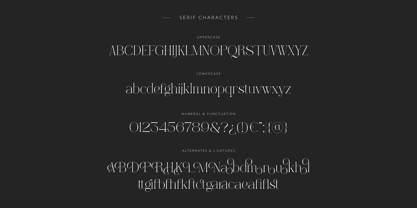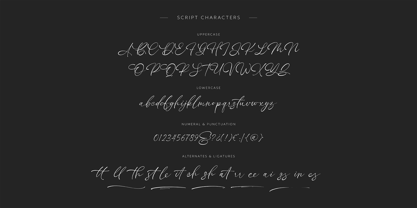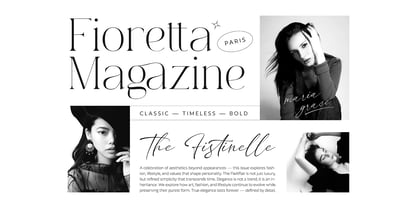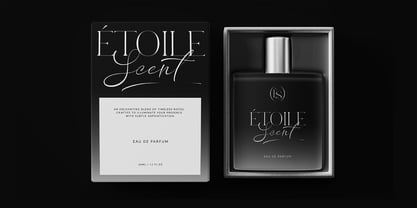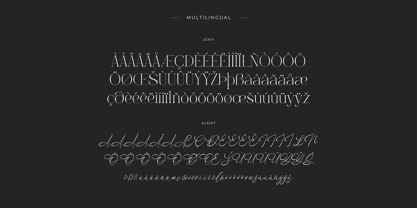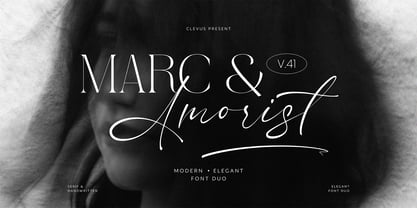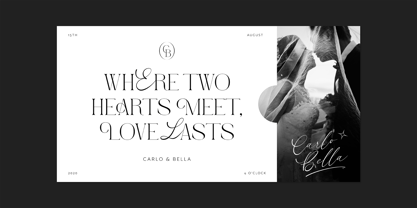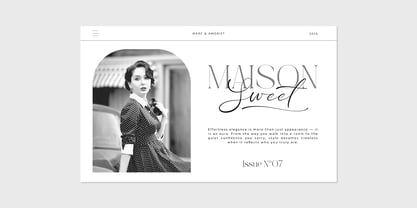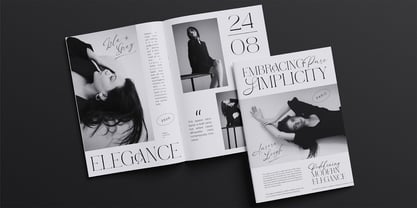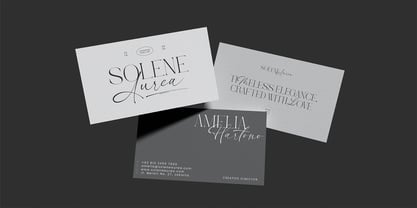
Marc & Amorist
The Marc & Amorist Font Family was designed by Alfinu Zafir and published by Clevus. Marc & Amorist contains 2 styles and family package options. More about this family
Proudly present Marc & Amorist.
Marc & Amorist Font Duo is a unique font design consisting of a combination of a classy serif font and a classic script handwritten font. It is specifically created to cater to the design needs of elegant and feminine themes, such as in magazines or branding materials. The serif font has a classic and timeless character, while the script font is designed with a personal and human touch, giving a modern and creative feel. This font duo is perfect for use in various design media such as magazines, books, posters, brand identities, logos, and more. By choosing Marc & Amorist Font Duo, you can add a touch of professionalism and modernity to your designs, while also providing quality and character to every design you create.